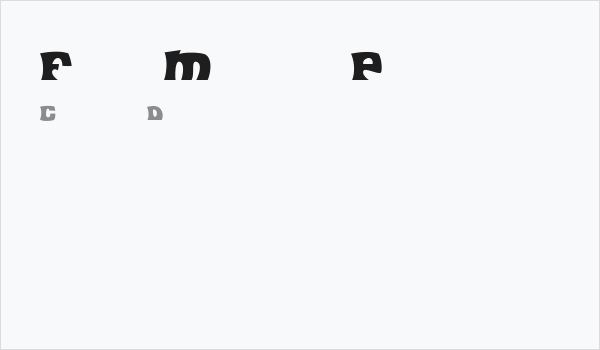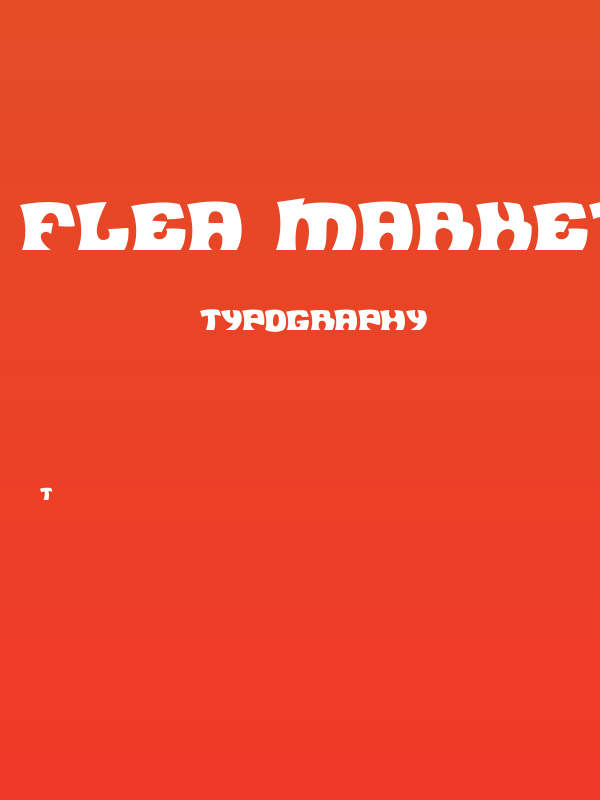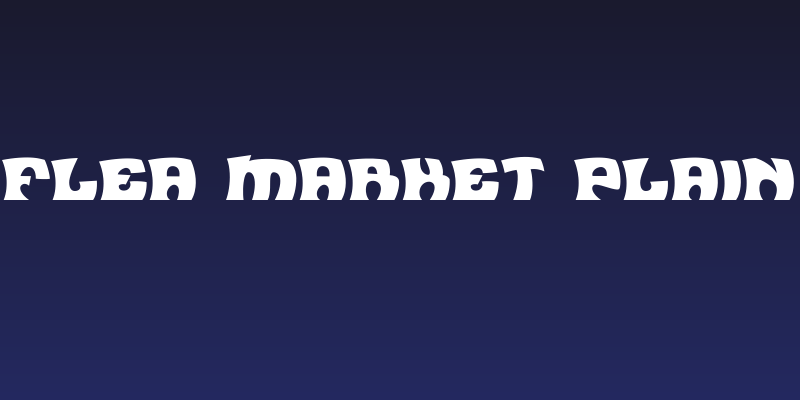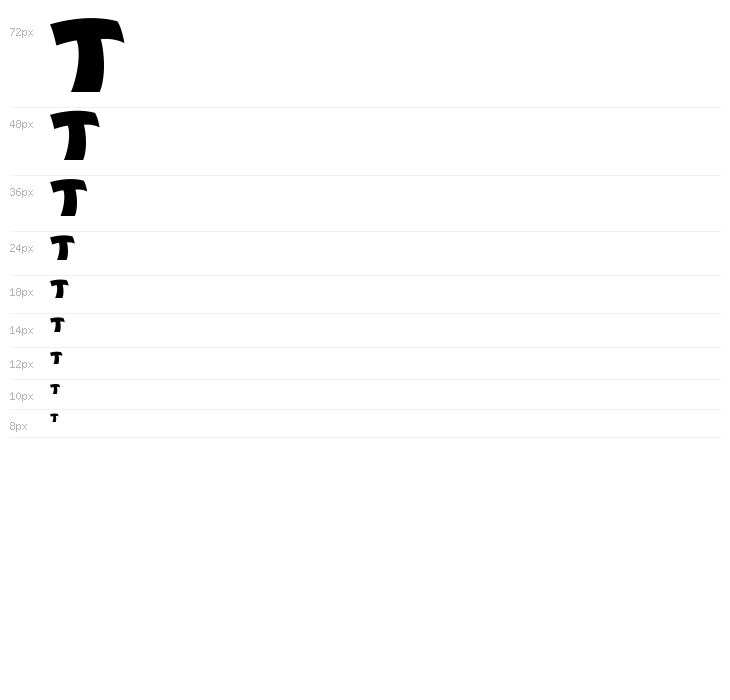
Flea Market Plain Font
Flea Market Plain Description
This font features a bold and playful design with a distinctly retro vibe. The characters are heavily stylized with thick strokes and exaggerated curves, giving them a unique and eye-catching appearance. The uppercase letters are particularly striking, with a strong presence that commands attention. The overall look is reminiscent of vintage signage or posters, making it ideal for projects that aim to capture a sense of nostalgia or whimsy. The font's boldness and character make it suitable for headlines or display purposes where a strong visual impact is desired.
| Proposed Projects | Ideal for vintage-themed posters, retro branding, playful event invitations, or eye-catching headlines. |